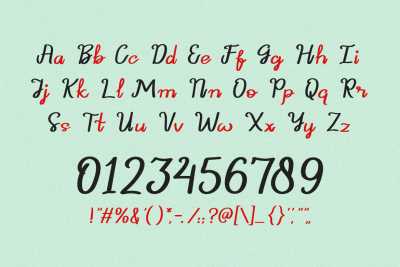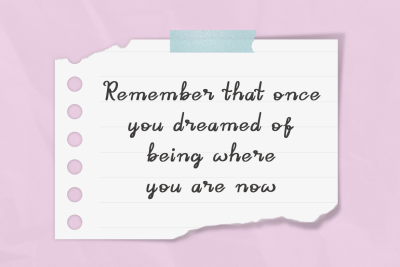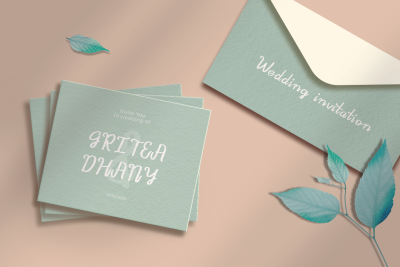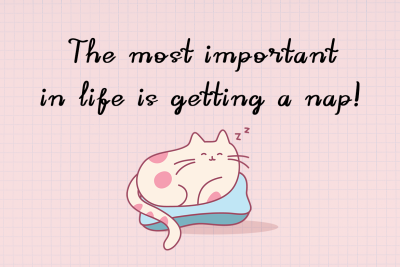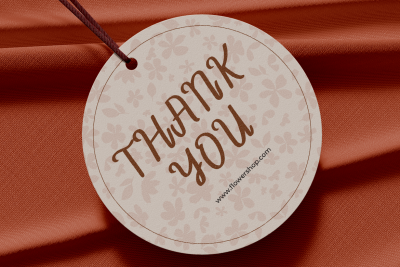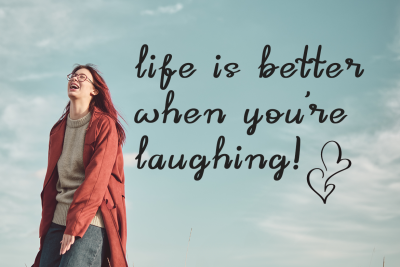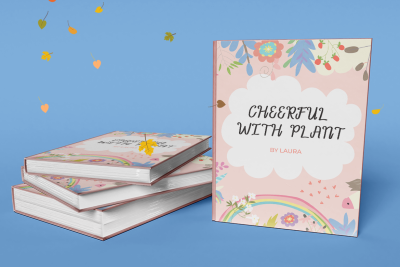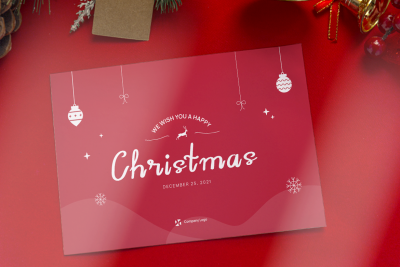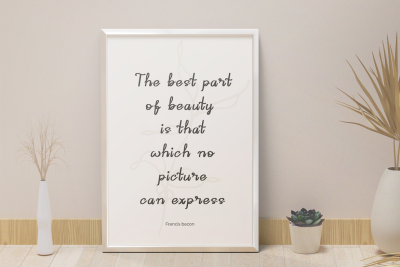
Handwriting Font HISTORIA is a beautifully crafted script typeface that captures the elegance and warmth of natural handwriting. Moreover, its smooth curves and fluid strokes bring an organic, personal touch to any text. The balanced letterforms and graceful swashes create a refined yet casual appeal, making it perfect for various creative projects.
Additionally, this versatile font blends well with both modern and vintage design styles. Its carefully designed ligatures and alternate characters ensure seamless word flow, effectively mimicking natural hand-lettering. Whether for digital or print projects, HISTORIA enhances readability and visual charm.
Furthermore, with a slightly bold and confident stroke, HISTORIA stands out while maintaining a soft, friendly personality. The font offers clarity in branding, editorial design, and other applications at both small and large sizes. It works well for headlines, quotes, or body text, always adding personality to designs. Moreover, its well-balanced spacing and smooth edges ensure a polished, professional look that enhances any creative composition.
Another key aspect of HISTORIA is its adaptability. It can be used for both formal and informal designs, making it a go-to choice for artists, professionals, and hobbyists alike. Whether you need a unique font for a branding campaign or a heartfelt handwritten note, this typeface provides the perfect balance between sophistication and approachability.
Handwriting Font HISTORIA For?
Handwriting Font HISTORIA is an excellent choice for designers, content creators, and branding professionals who seek warmth and authenticity. Its friendly, handcrafted style makes it ideal for:
- Graphic Designers: Perfect for logos, posters, and promotional materials that need a personal touch.
- Social Media Influencers: Moreover, it enhances storytelling for Instagram, Pinterest, and YouTube visuals.
- Small Business Owners: It helps create branding, packaging, and marketing materials that feel unique and relatable.
- Writers & Bloggers: Additionally, it adds a personalized feel to book covers, blog headers, and editorial designs.
- Wedding & Event Planners: It complements elegant invitations, greeting cards, and stylish stationery.
- Educators & Course Creators: Furthermore, it improves presentation slides, worksheets, and learning materials.
- Artists & Hobbyists: Whether for handmade crafts, calligraphy projects, or creative artwork, this font brings a personalized touch that stands out.
With elegance and friendliness combined, Handwriting Font HISTORIA elevates designs with a personal, handwritten touch. Whether for professional or personal projects, this font ensures messages remain visually stunning and emotionally engaging. Its versatility makes it an essential addition to any designer’s toolkit, providing endless possibilities for artistic expression.